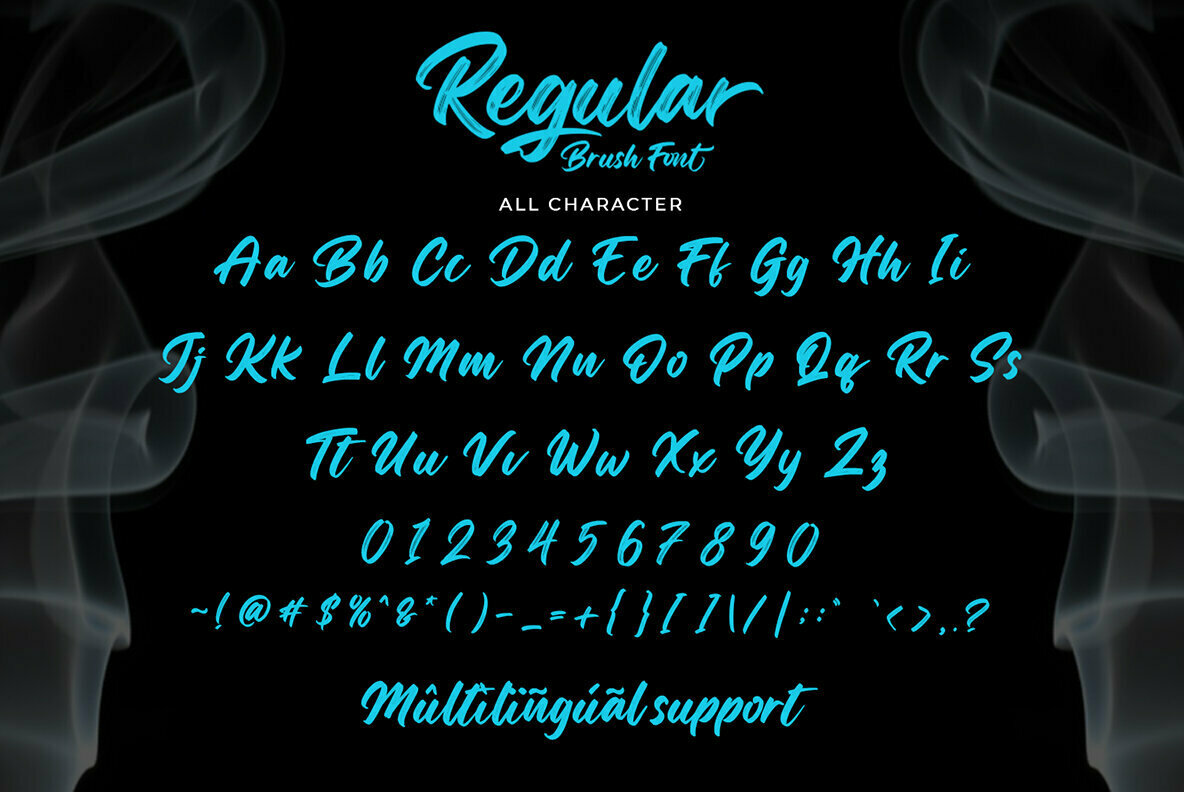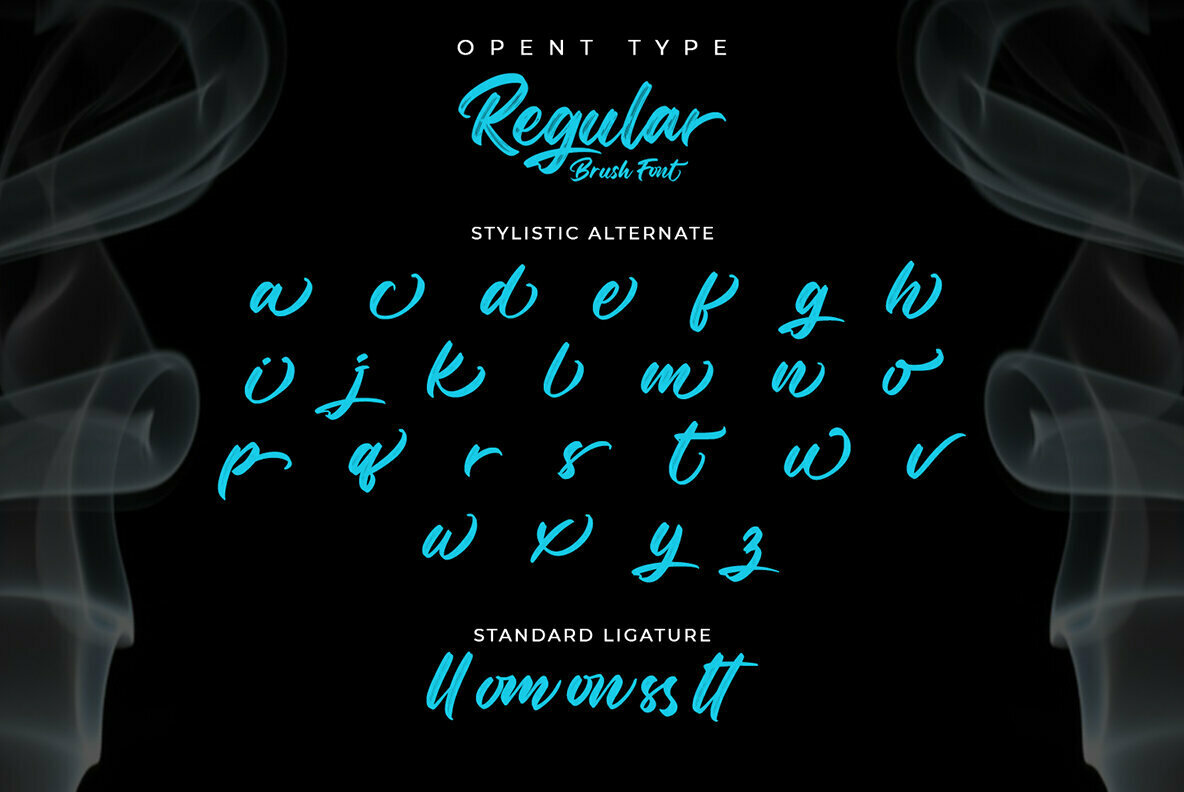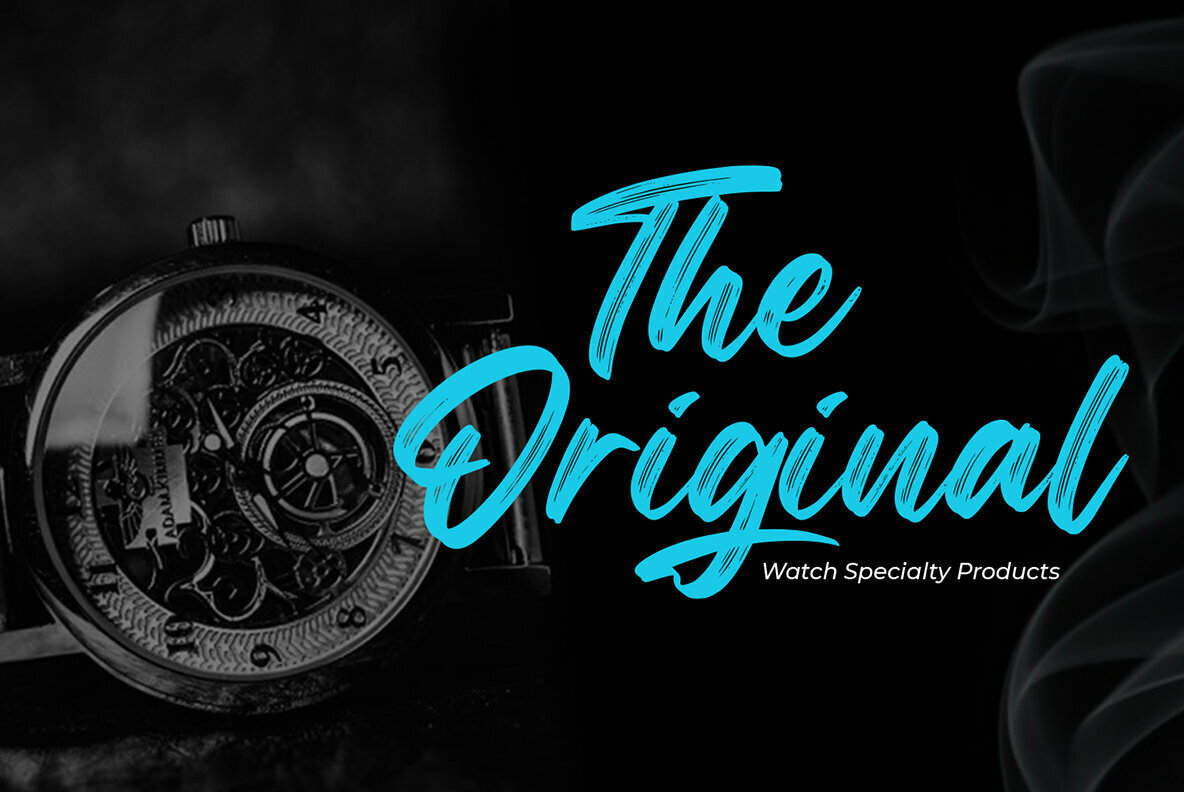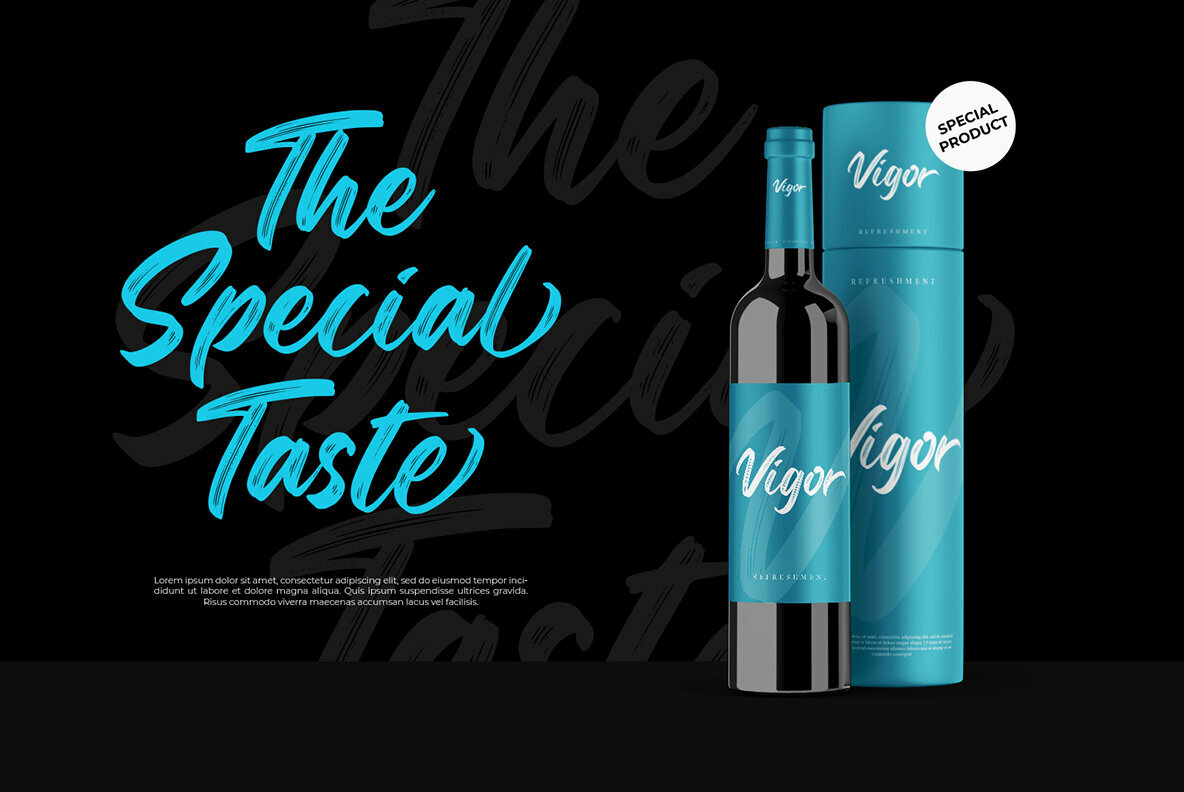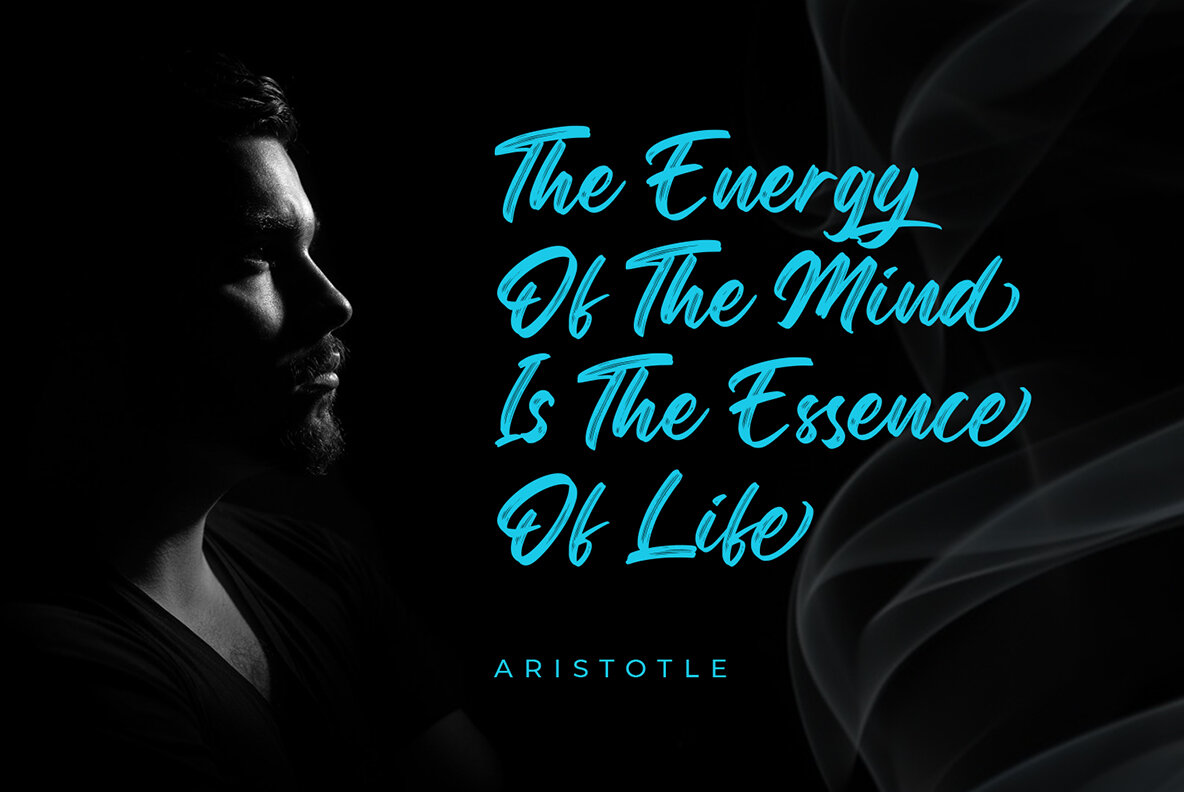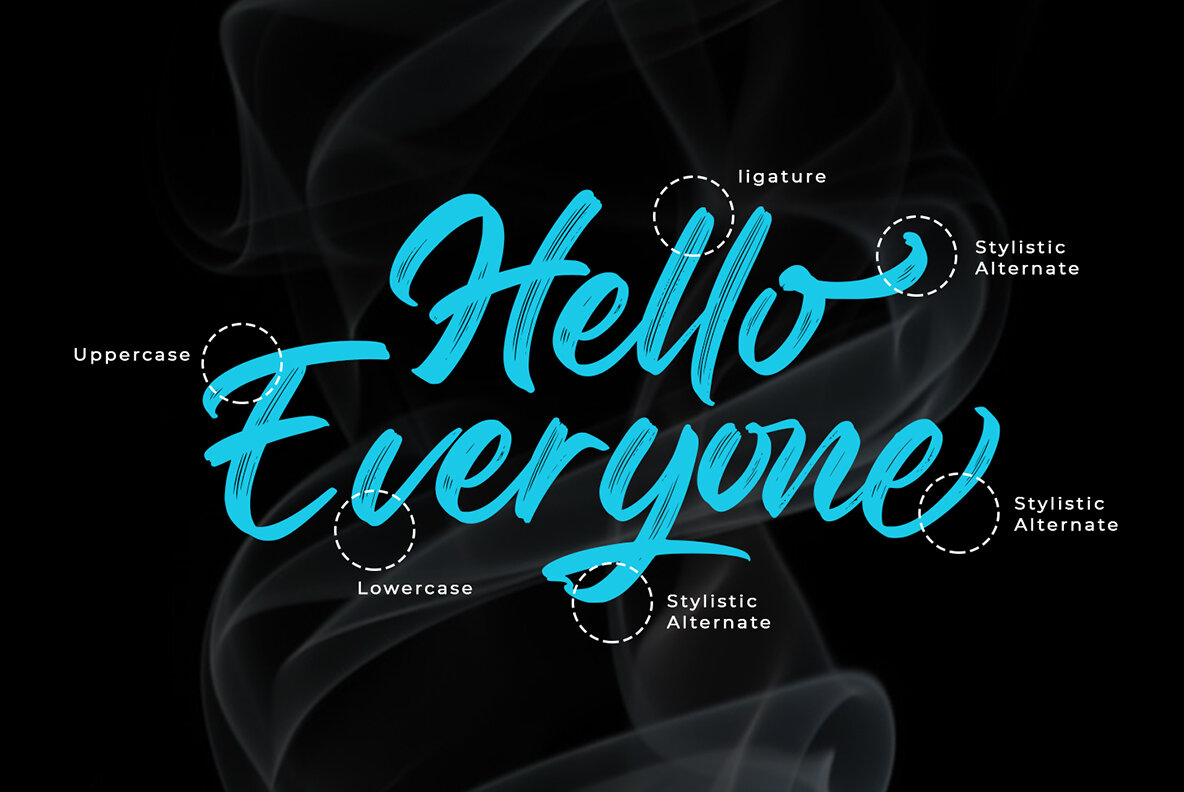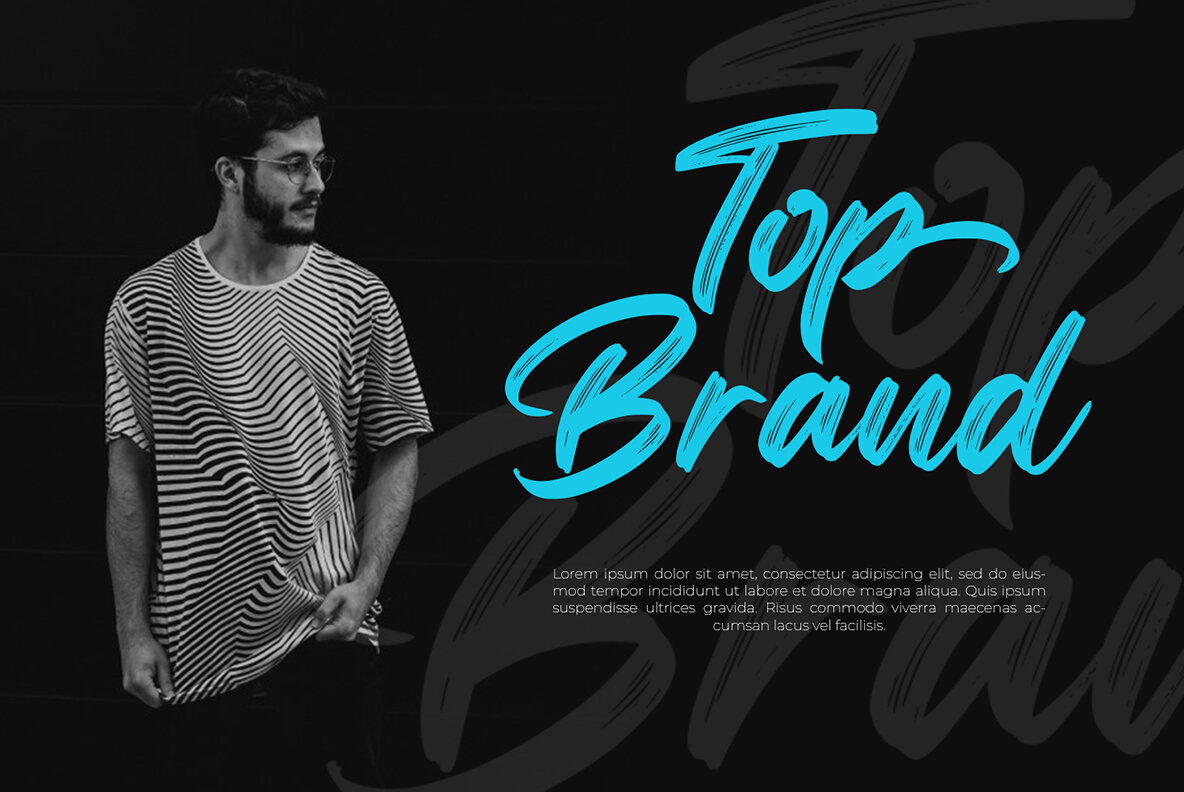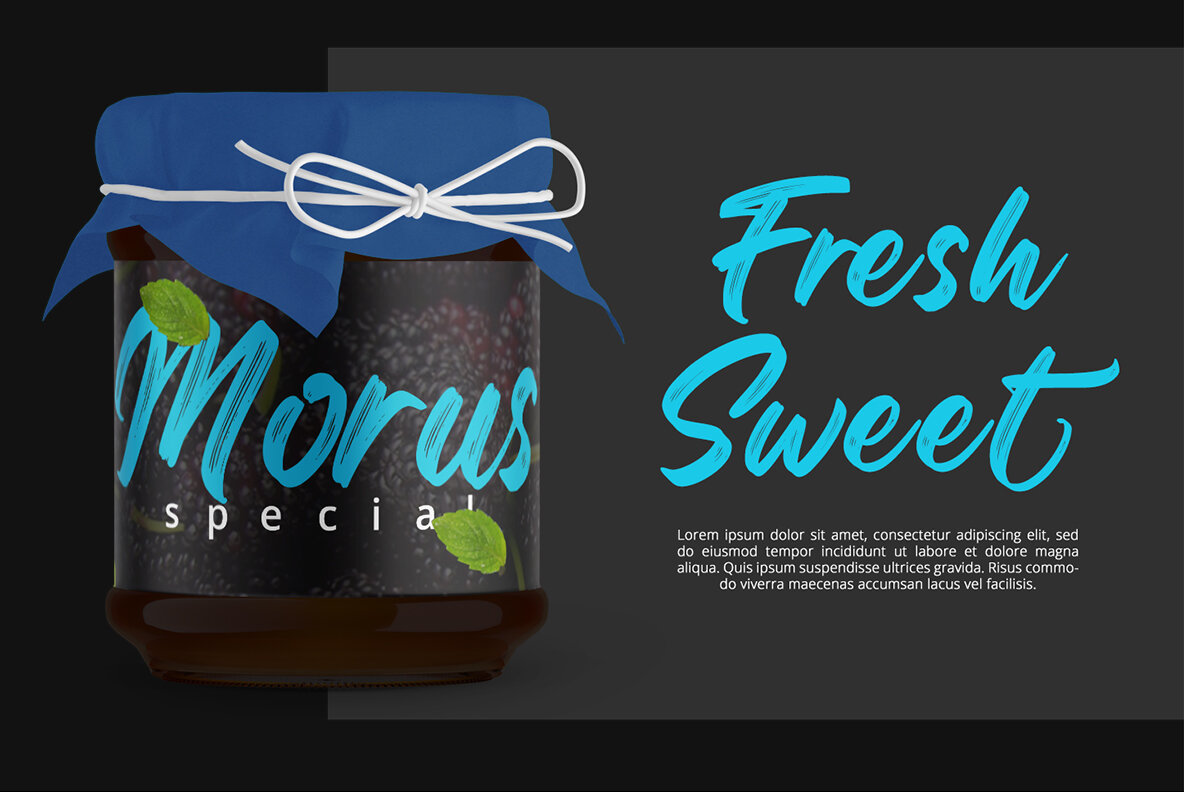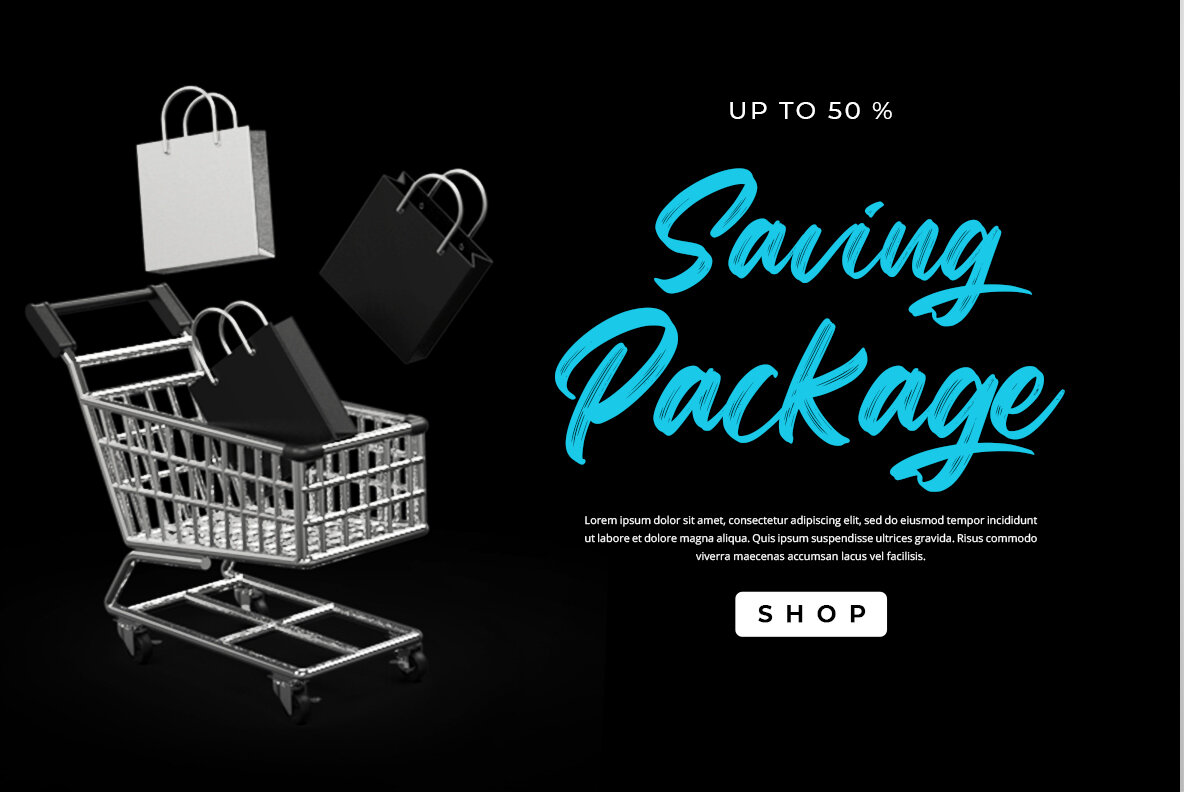
Regular Brush Font
Regular Brush
Regular Brush is a elegant brush font. The handwritten combined with brush font will make your design project more attractive. Made for any professional project branding. It is the best for logos, branding and quotes.
- Stylistic Set
- Beautiful Ligatures
- Numerals and Punctuation